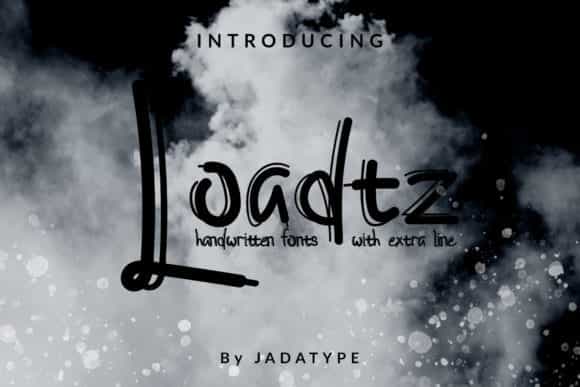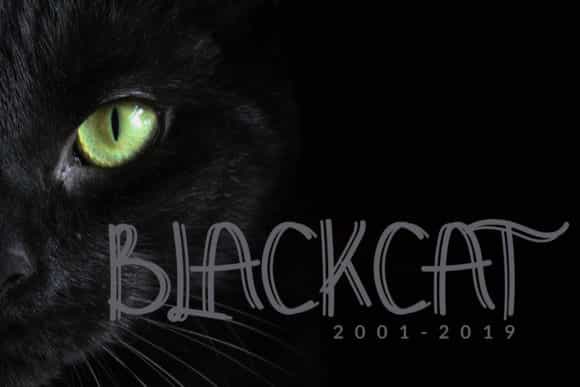
Loadtz Font is a double lined display font with an extremely powerful look. On invitation like greeting cards, branding materials, business cards, quotes, posters, and many more, so beautiful!